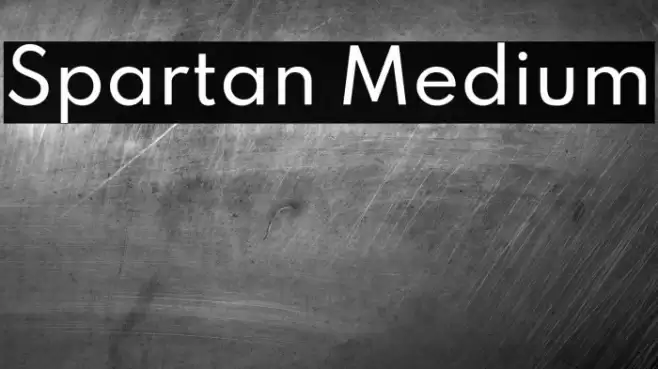
Spartan Medium Font
Spartan Medium Description
This typeface presents a clean and modern aesthetic with its geometric sans-serif style. The characters are well-proportioned, offering a harmonious balance between form and function. The uppercase letters are bold and assertive, while the lowercase letters maintain a friendly and approachable demeanor. The numerals are clear and legible, making them suitable for various applications. The special characters are designed with simplicity in mind, ensuring they complement the overall style of the typeface. Its versatility makes it an excellent choice for both digital and print media, providing a contemporary look that is both professional and stylish.
A modern, geometric sans-serif typeface with clean lines and balanced proportions from Uncategorized fonts.